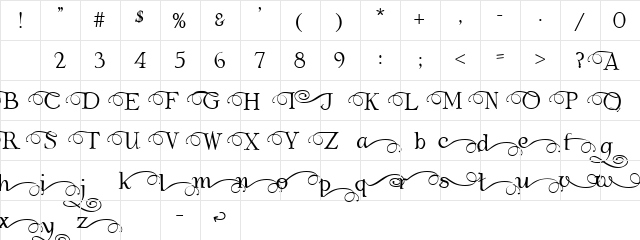
Albemarle End Swash Regular
Design Context for Albemarle End Swash Typeface
Albemarle End Swash flows with the natural rhythm of handwritten lettering, making it ideal for designs that call for warmth and personal expression.
Font Pairing: Combine Albemarle End Swash with a simple geometric sans for maximum contrast — the tension between flowing curves and clean structure is a classic typographic pairing.
Pro Tip: Use Albemarle End Swash for short runs of text — names, titles, or taglines. Extended body copy in script faces tires the eye quickly.